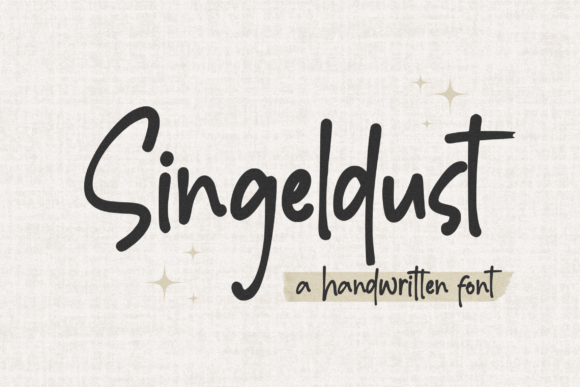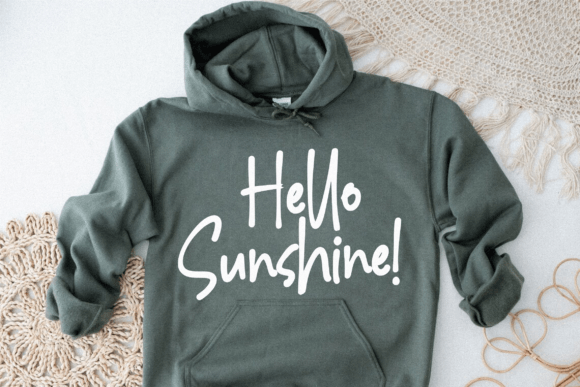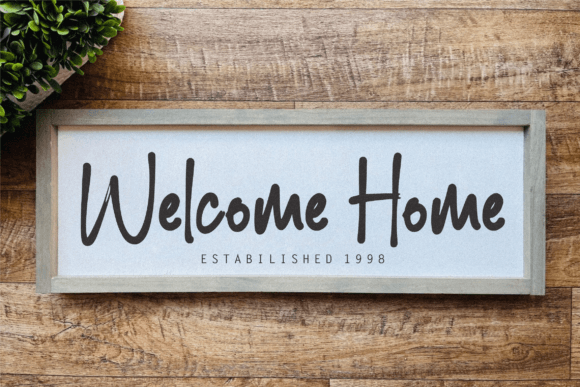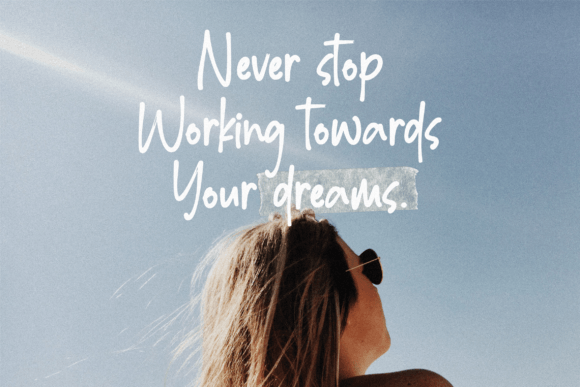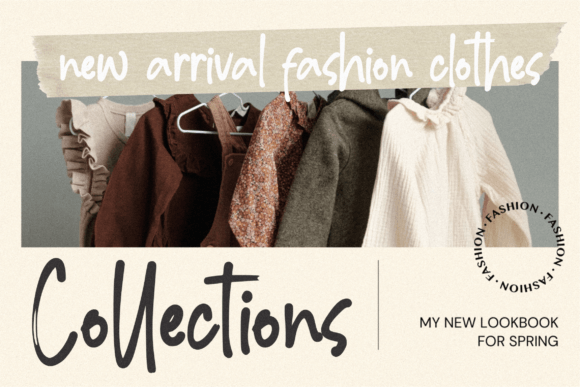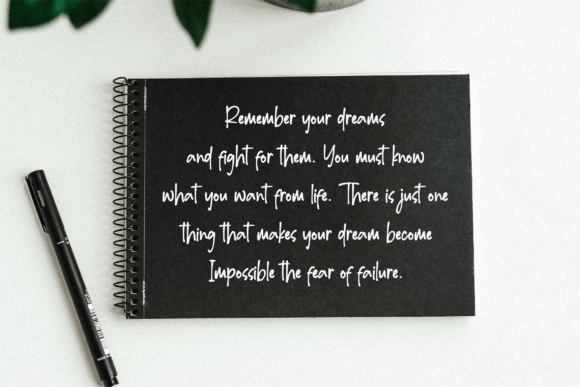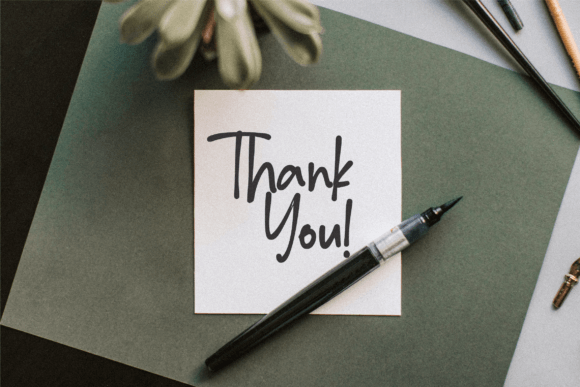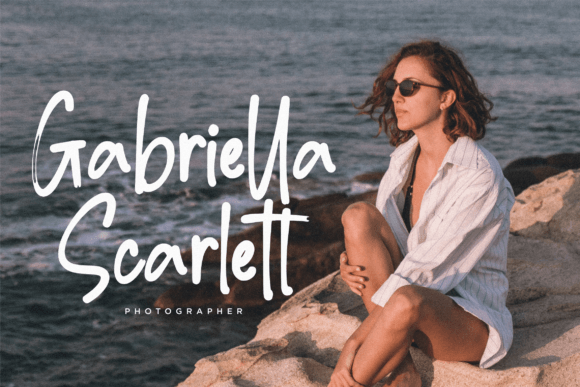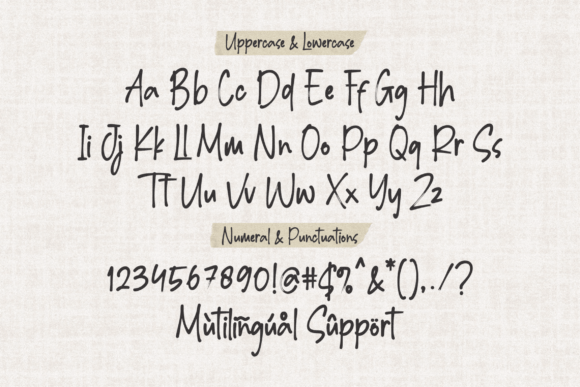
Singeldust Font
A Stylish Script for Modern Designs
Singeldust is a chic script font designed to bring elegance and style to any project. Each letter features smooth curves and a graceful flow that feels both modern and timeless. The font’s clean lines and balanced shapes help your text look polished and professional.
Whether you are creating branding materials or personal designs, Singeldust adds a refined touch that makes your work stand out.
Singeldust is a versatile font you can use in countless ways. It works beautifully for product packaging, where its stylish look can highlight the quality of your brand. You can also use it for magazine layouts and social media graphics.
This font is a great choice for wedding invitations, save-the-date cards, and event signage. It helps your text feel warm, personal, and memorable.
Singeldust also looks stunning when used for quotes or expressive headlines layered over photos or textured backgrounds. The smooth, elegant strokes draw attention without overwhelming the design.
Clear, Refined, and Easy to Read
Even though Singeldust has a handwritten script style, it stays clear and easy to read at any size. The balanced spacing keeps your text neat, whether you’re designing large headlines or small captions.
Many designers like to pair Singeldust with clean sans-serif fonts. This combination creates a fresh, modern look that feels professional and organized. Use Singeldust for titles and the sans-serif for body text. This approach helps guide your reader’s eye through your layout.
To get the best results with Singeldust, use light backgrounds and soft, neutral color palettes. Tones like ivory, beige, and blush help the smooth lines stand out without distraction.
For wedding materials or elegant packaging, consider adding floral illustrations or watercolor textures. These elements highlight the romantic feel of the font. For branding or social media, keep your layout minimal so Singeldust remains the star.
Think about the feeling you want to share. Singeldust is perfect for designs that should feel elegant, authentic, and stylish.
A Must-Have for Your Font Collection
Singeldust is more than just a script font. It’s a creative asset that can elevate your work with minimal effort. Its smooth shapes and refined details bring a touch of luxury to every project.
Adding Singeldust to your font library means you always have a reliable option for all types of design. From product packaging and branding to wedding invitations and social media graphics, this font adapts effortlessly to your ideas.